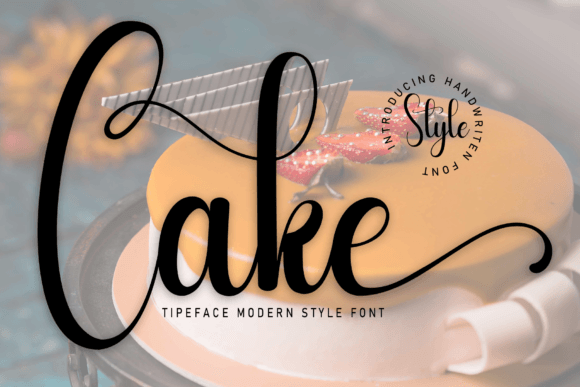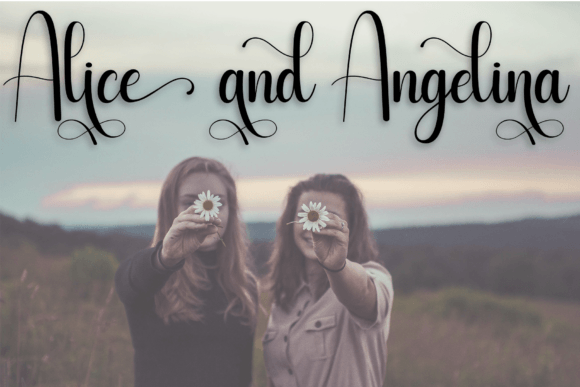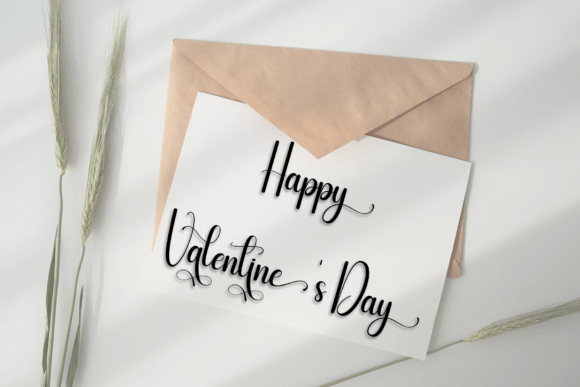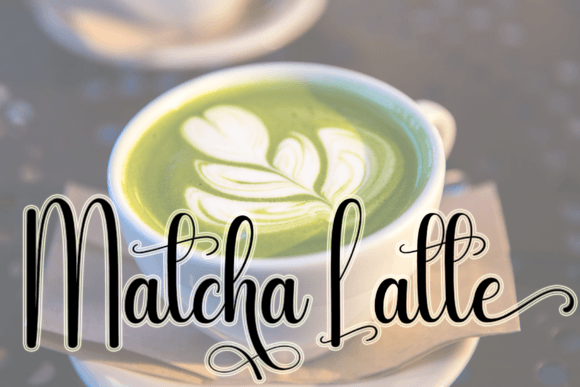
Cake Font
About the Cake Font
Experience the unique personality of Cake Font, a font designed for impact. Cake is a sweet and friendly handwritten font. Fresh and neat, this font is ideal for writing wedding invitations, cards, or any other design that might need a fun touch!
Cake’s friendly, informal style makes it perfect for branding projects needing a whimsical touch, such as children’s products, bakeries, or craft businesses. It also works well on short-form marketing materials like social media posts and packaging where readability isn’t paramount. However, avoid using Cake for body text or lengthy paragraphs; its handwritten nature can hinder legibility in larger blocks of text. It’s also not suitable for UI elements where clarity and precision are critical.
Pair Cake with a clean sans-serif like Lato for a balanced contrast, or a more geometric sans-serif such as Montserrat for a modern feel. For a touch of elegance, consider pairing it with a delicate serif like Playfair Display. These pairings maintain visual harmony while providing clear readability where Cake alone might fall short.
Cake’s overall personality is best described as playful and approachable, conveying warmth and approachability. Its slightly irregular letterforms add a handcrafted feel, ideal for projects emphasizing authenticity and charm.
Cake Font Usage Examples
Cake Font Example